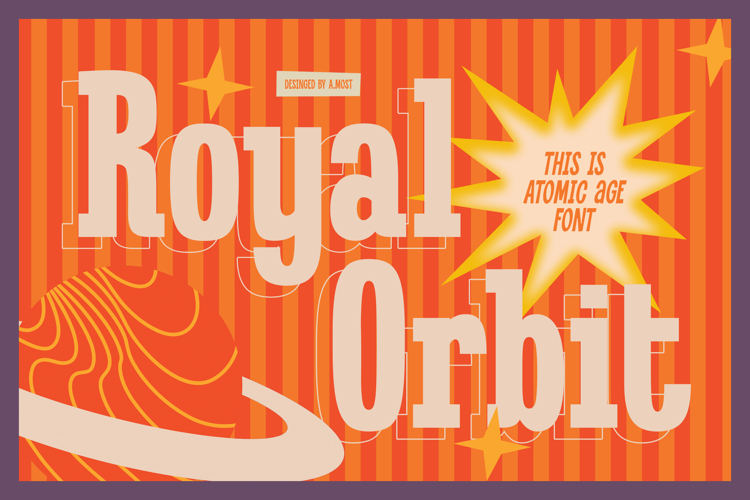
Venture back to yesteryears as you bask in the vintage allure of Royal Orbit, a signature Mid-Century Style Retro typeface. Its unique appeal and striking aesthetics are particularly suited for display settings, offering a captivating visual journey. Beyond its head-turning look, Royal Orbit also boasts a remarkable versatility, melding effortlessly with other classic script typefaces. Discover the essence of a bygone era etched in typography and add a distinct touch of timelessness to your designs with Royal Orbit.